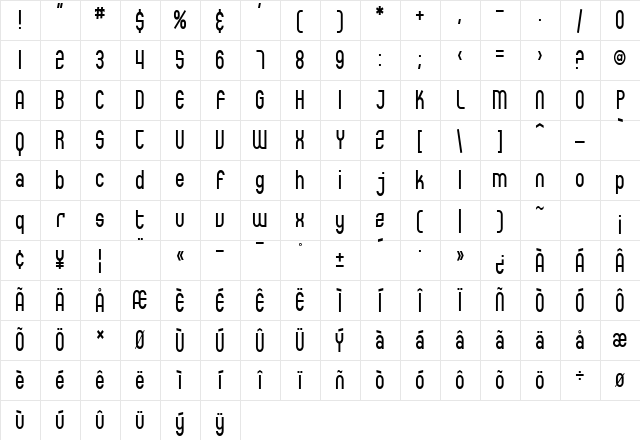
SF Eccentric Opus Condensed Regular
Design Context for SF Eccentric Opus Condensed
SF Eccentric Opus Condensed is a composed and adaptable typeface that performs quietly and consistently across a wide range of design contexts. Its narrow stance lets it pack a punch even in space-constrained designs.
Pro Tip: Use SF Eccentric Opus Condensed in both headline and body roles to test its range before committing to a single application.